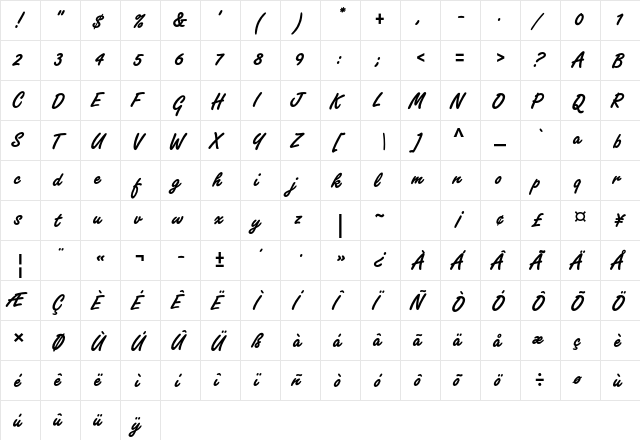
Freestyle Script Std Bold Font Preview
| Designer | Martin Wait |
Design Context for Freestyle Script Std Typeface
Freestyle Script Std flows with the natural rhythm of handwritten lettering, making it ideal for designs that call for warmth and personal expression. The heavy weight commands attention and anchors typographic hierarchies.
Font Pairing: Combine Freestyle Script Std with a simple geometric sans for maximum contrast — the tension between flowing curves and clean structure is a classic typographic pairing.
Pro Tip: Pair Freestyle Script Std with a clean sans-serif for supporting text. The contrast between fluid script and geometric structure creates an elegant typographic hierarchy.